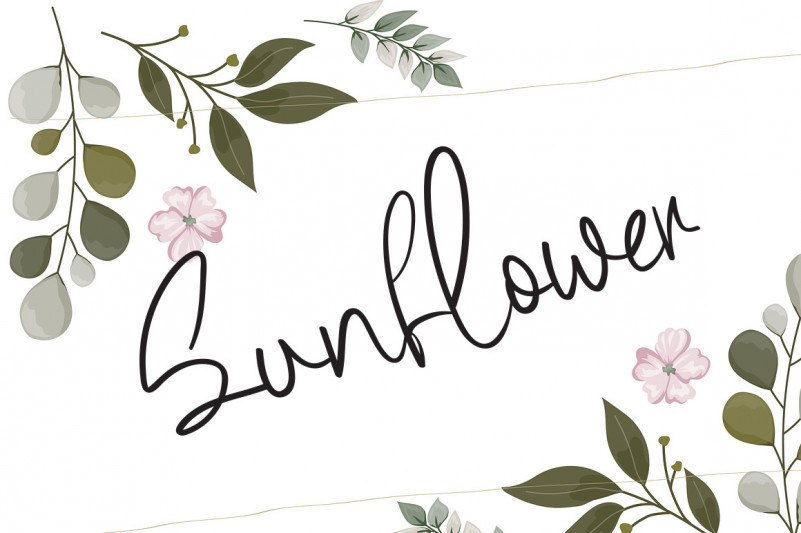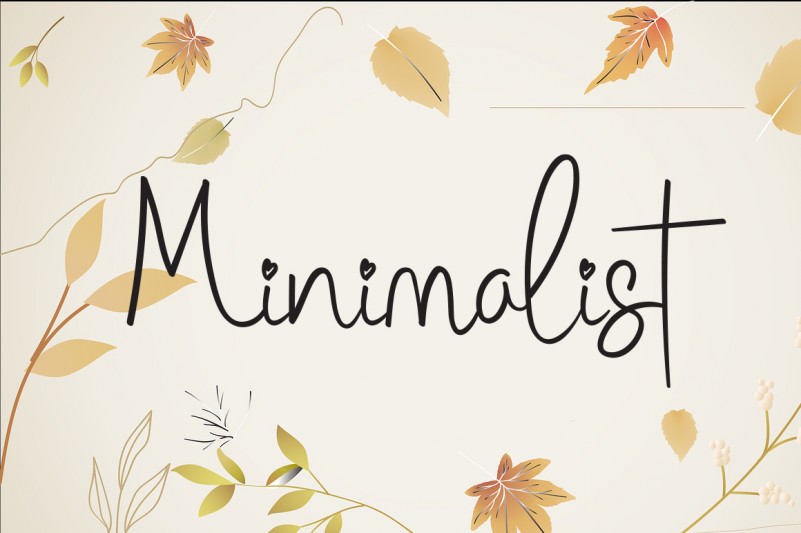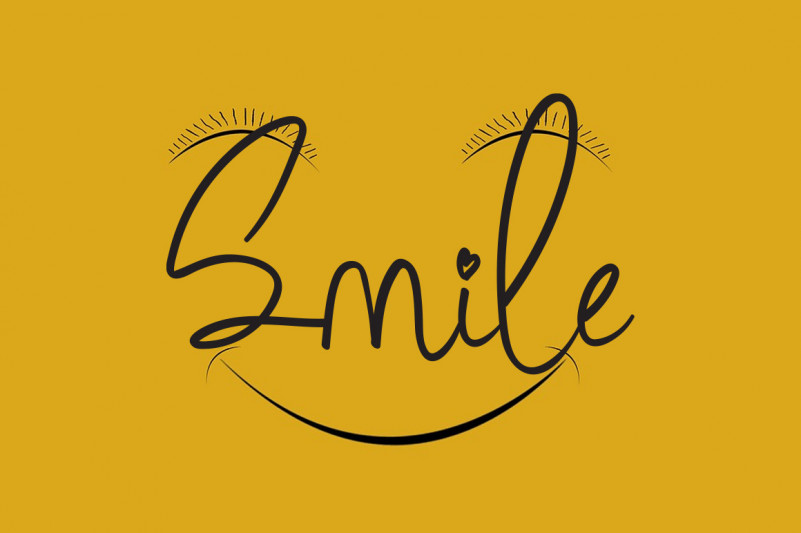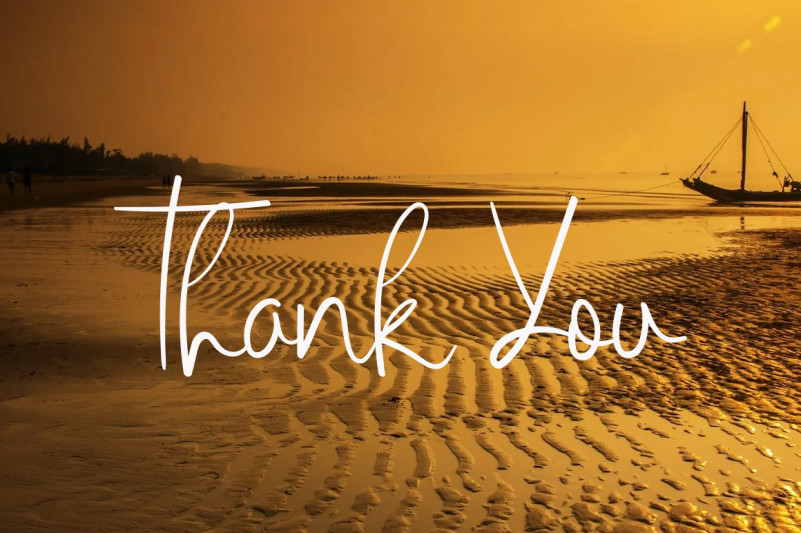
Wedding Cursive Handwritten Font
It’s an equally lovely and cursive handwritten font that’s great for delivering any message with authenticity and charm. It will elevate a wide range of crafting ideas, from cards, to branding, labels and much more.